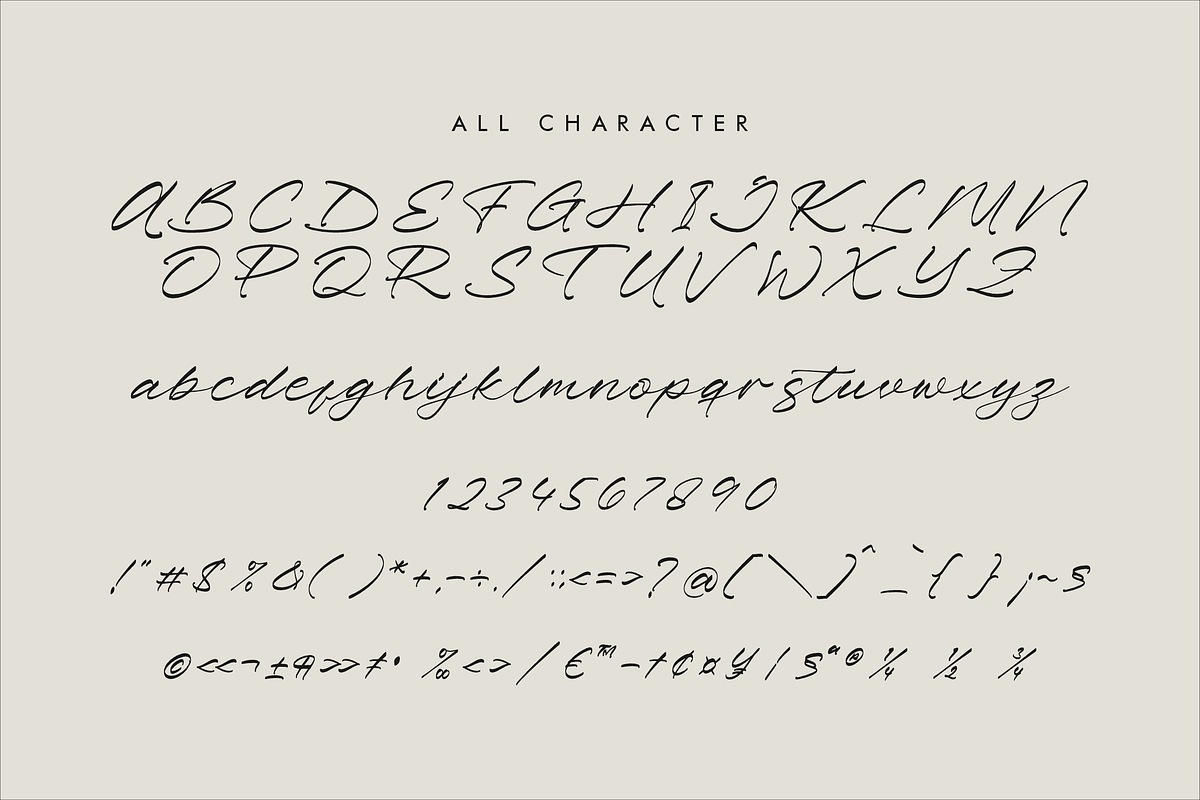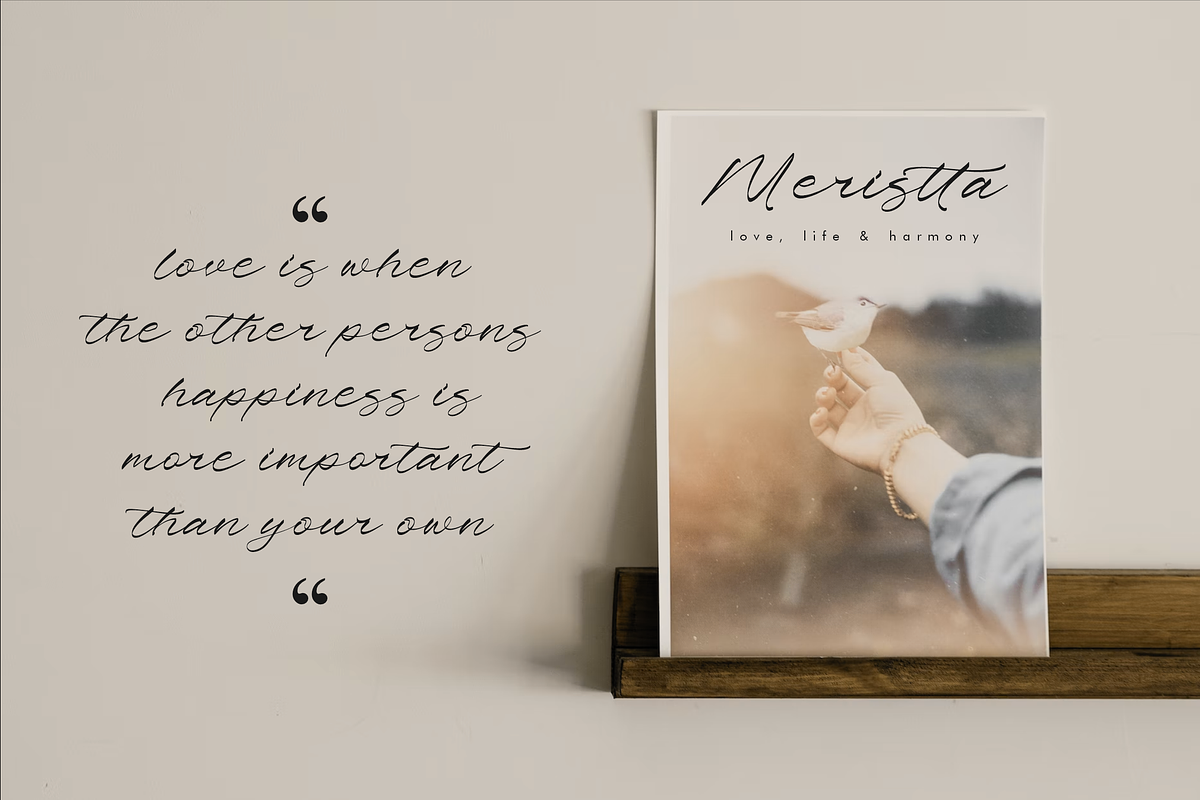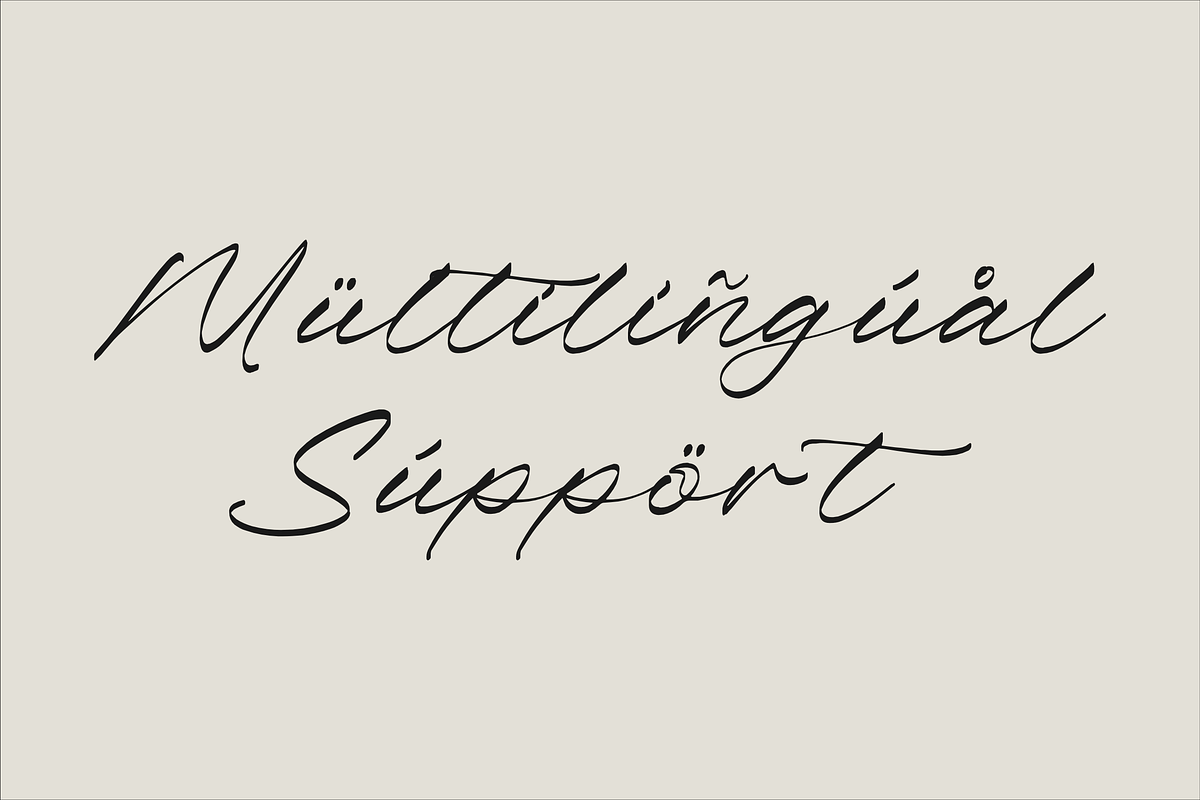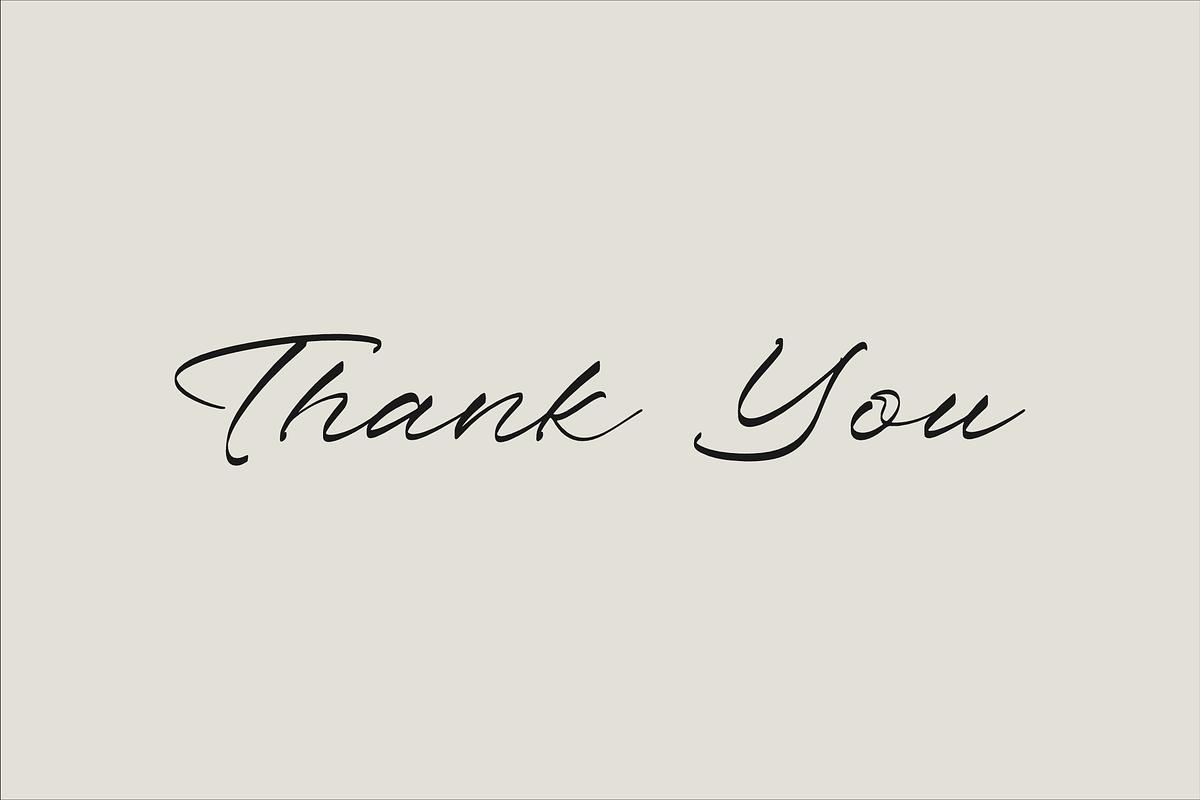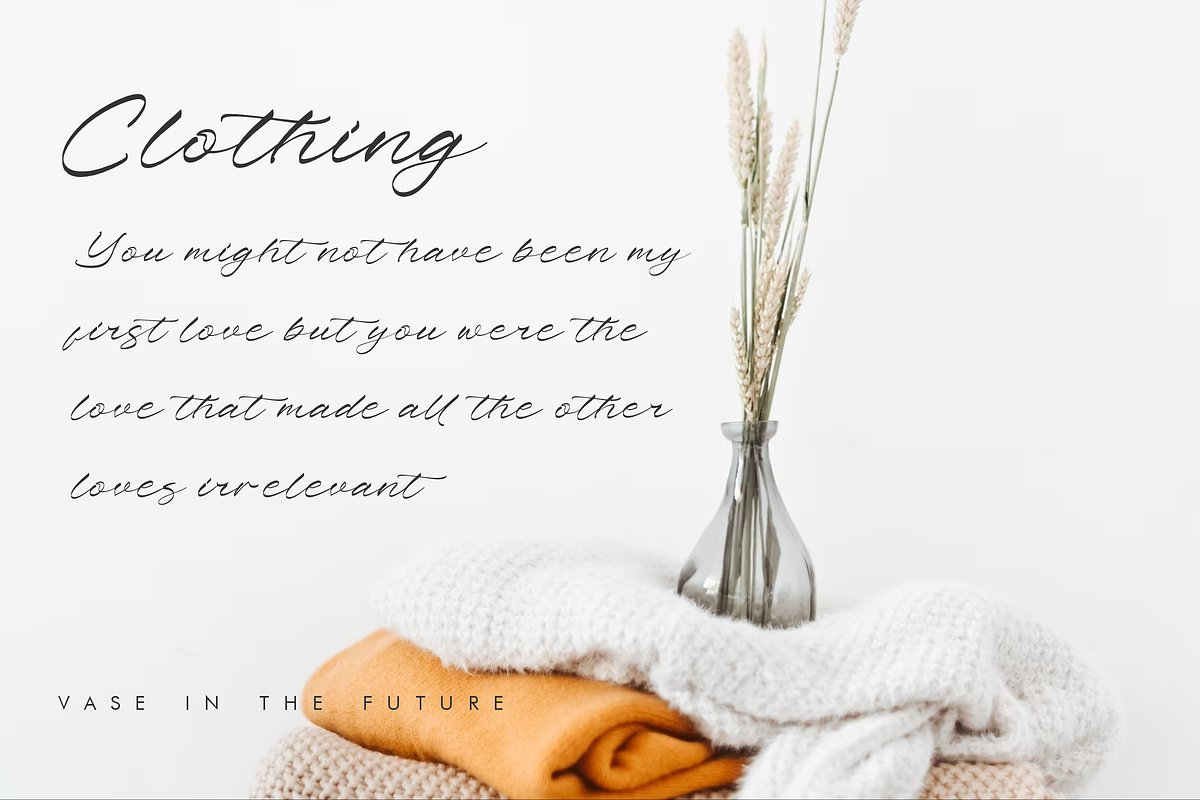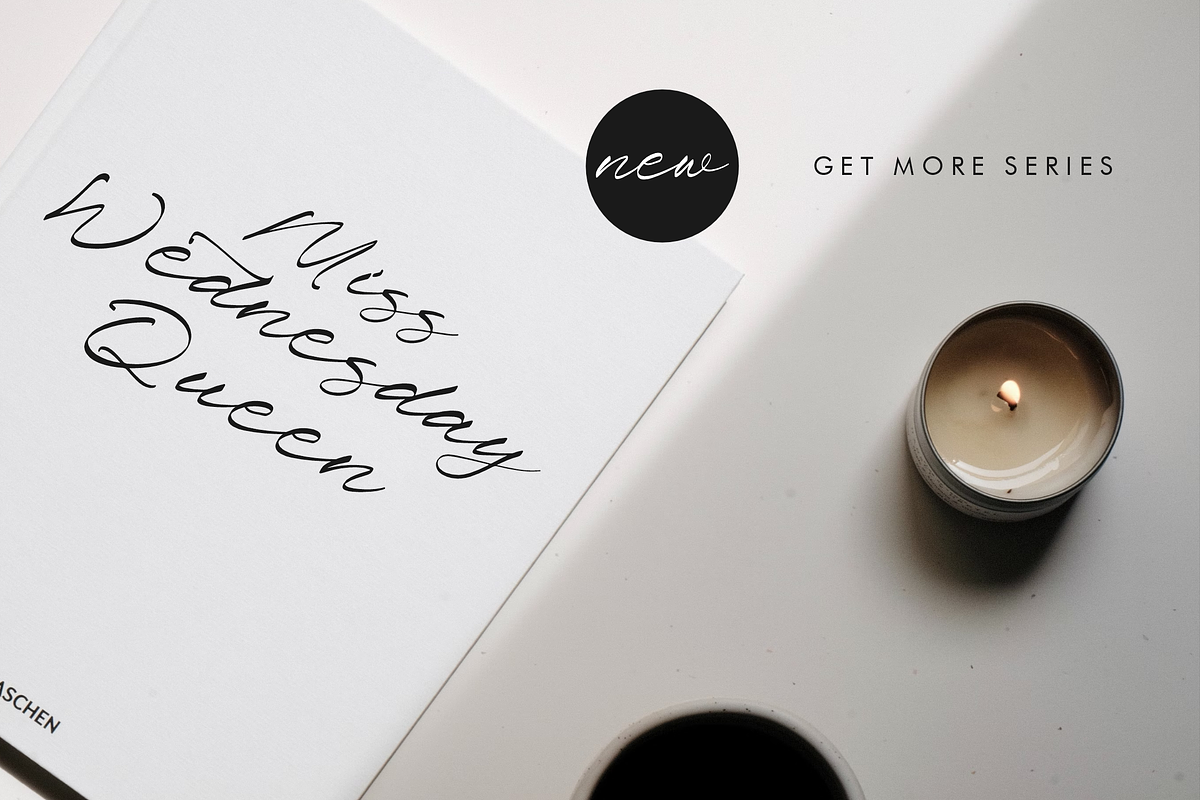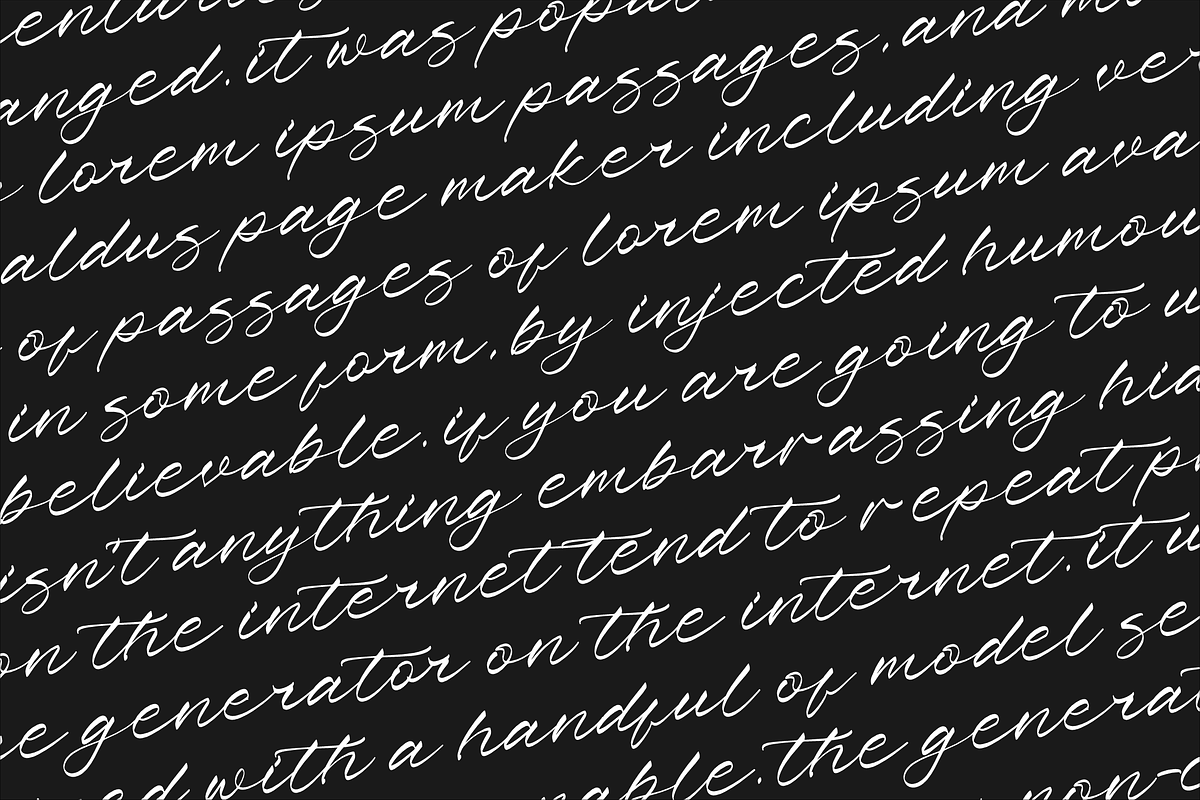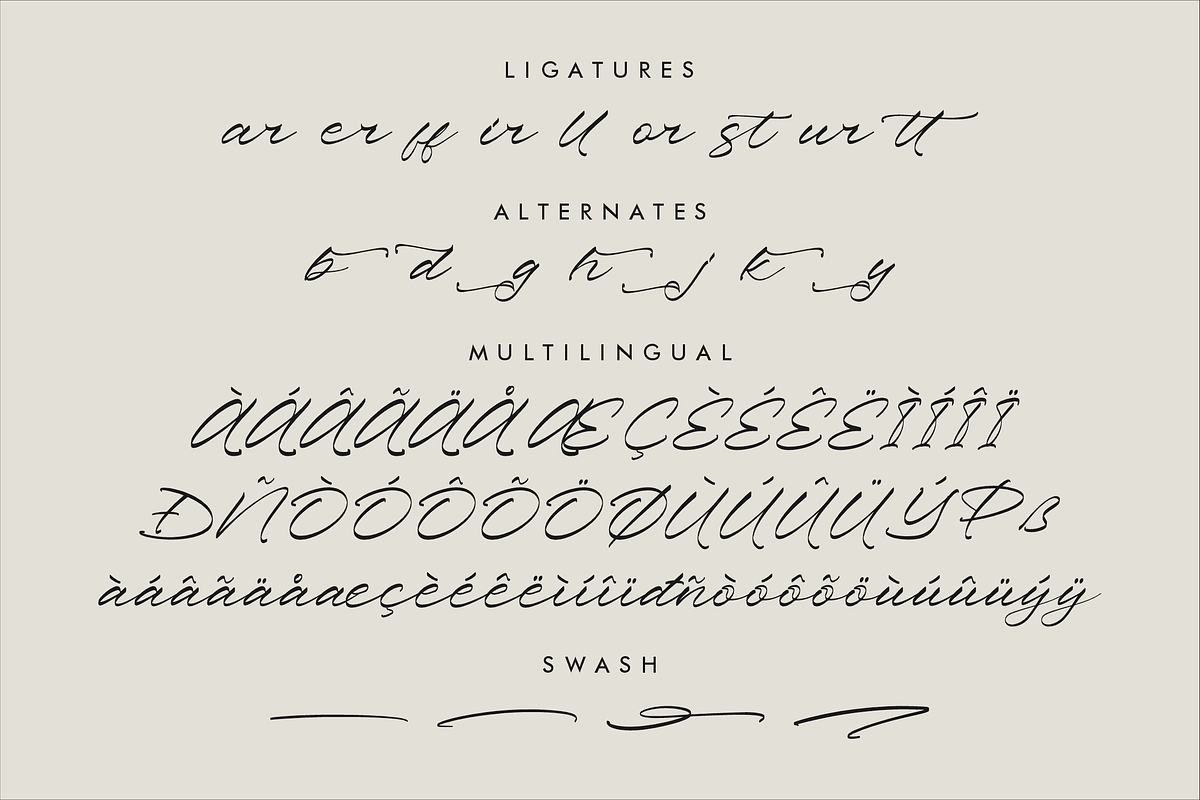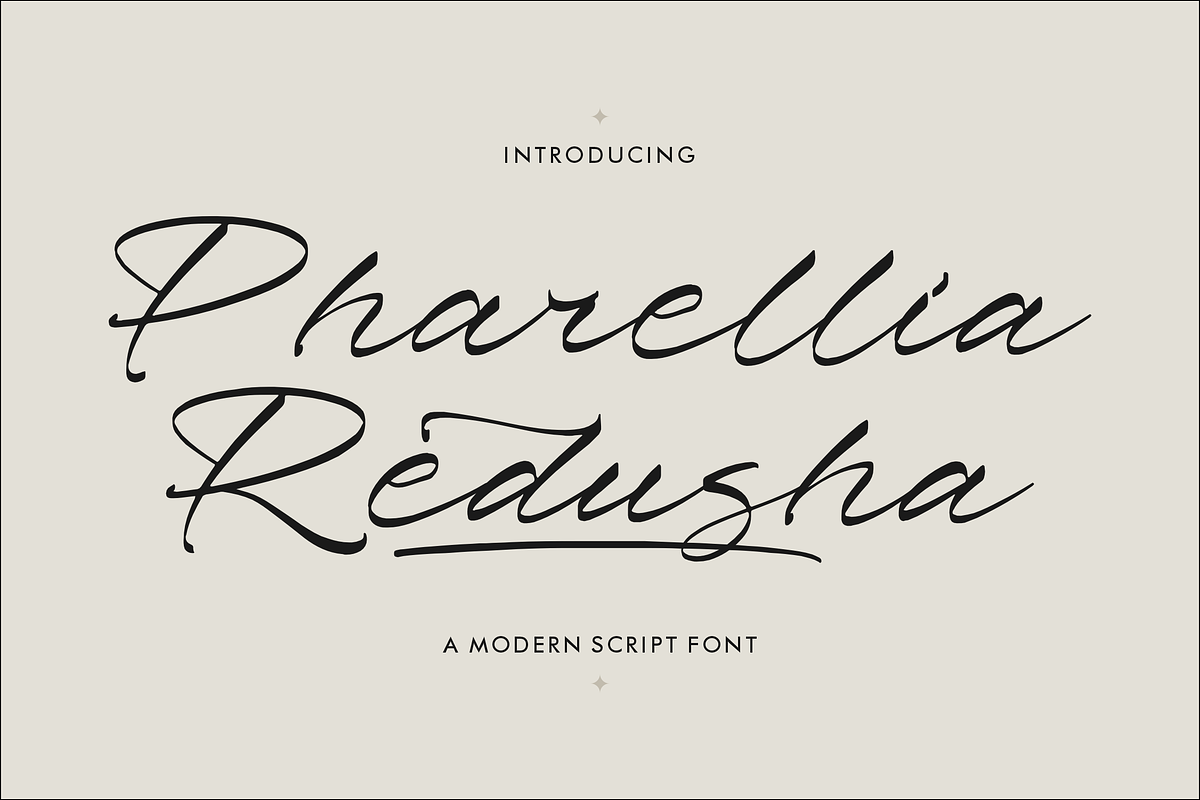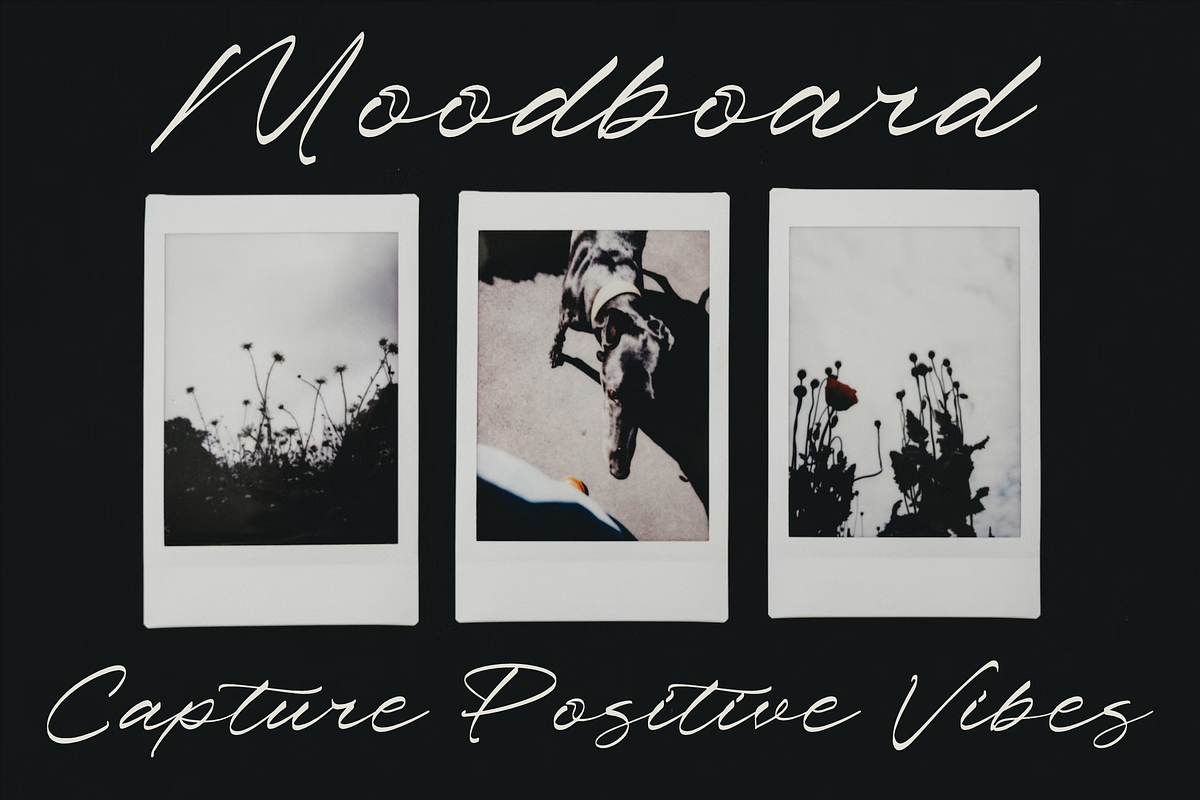
Pharellia Redusha A Modern Script
Proudly present Pharellia Redusha - Modern Script Font , created by Storytype, A luxury script that has own unique style & modern look. This typeface is perfect for an elegant & luxury logo, book or movie title design, fashion brand, magazine, clothes, lettering, quotes, and so much more.